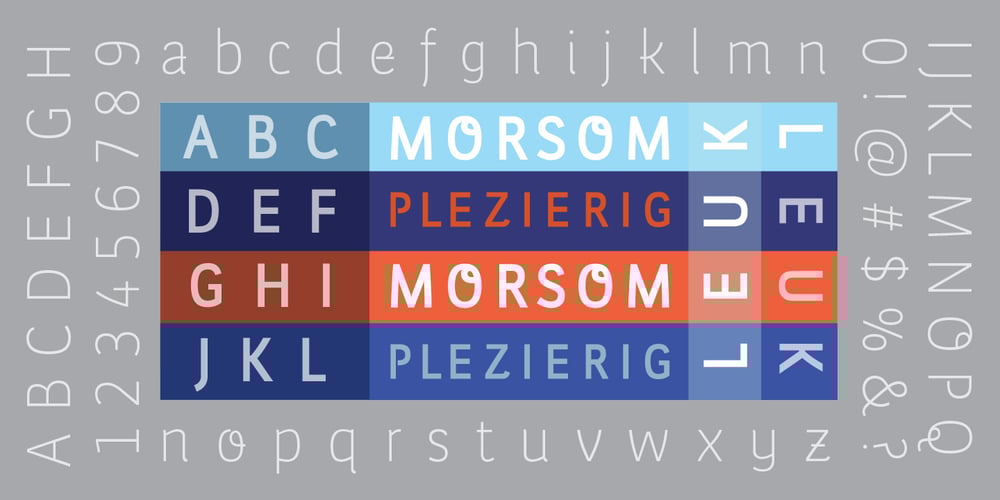
Leuk Font Family was designed by Robbie de Villiers and published by Wilton Foundry. Leuk contains 8 styles and family package options. The Dutch word “leuk” translates loosely to English as pleasant, jolly, funny, witty, clever, nice, sweet, kind, nice, amusing, entertaining, and funny. Leuk, the font, is a small, highly legible font with a witty, sociable personality that engages it’s readers. My challenge in designing Leuk was to find a unique feature to set apart the font without losing the fundamentals of type design. In the process of doing so, I created a virtual font “smile and wink” in the “o” upper and lowercase with integrated stencil-connecting strokes within the “a,e, k, z, o, ß” to reveal Leuk’s calligraphic roots. Legible and friendly, Leuk is designed for use in advertising, brochures, promotion, book cover design, packaging, and the like. The Leuk family consists of Leuk Light, Leuk Light Italic, Leuk Regular, Leuk Italic, Leuk Bold, Leuk Bold Italic, Leuk Black, Leuk Black Italic in Opentype format.